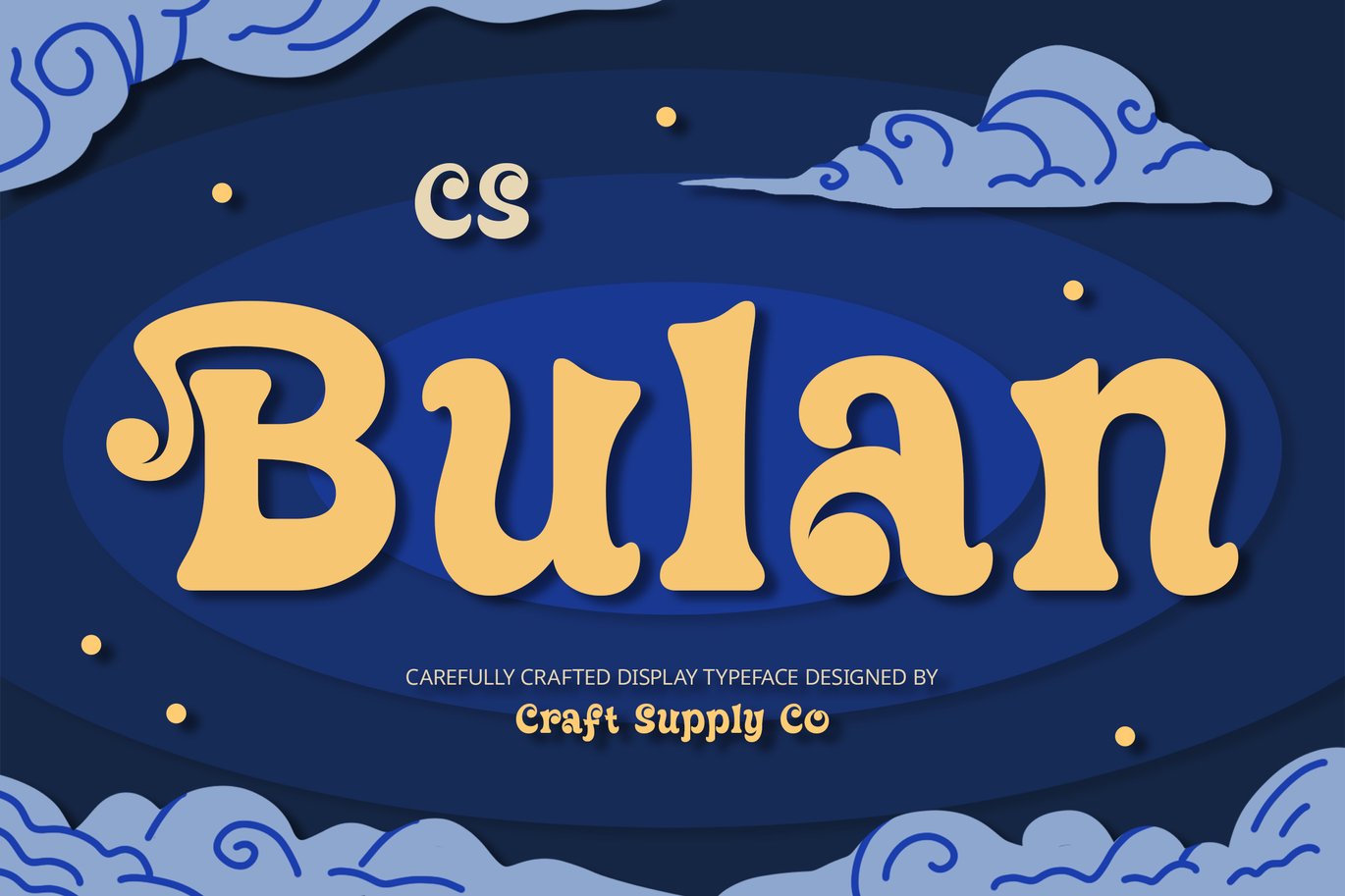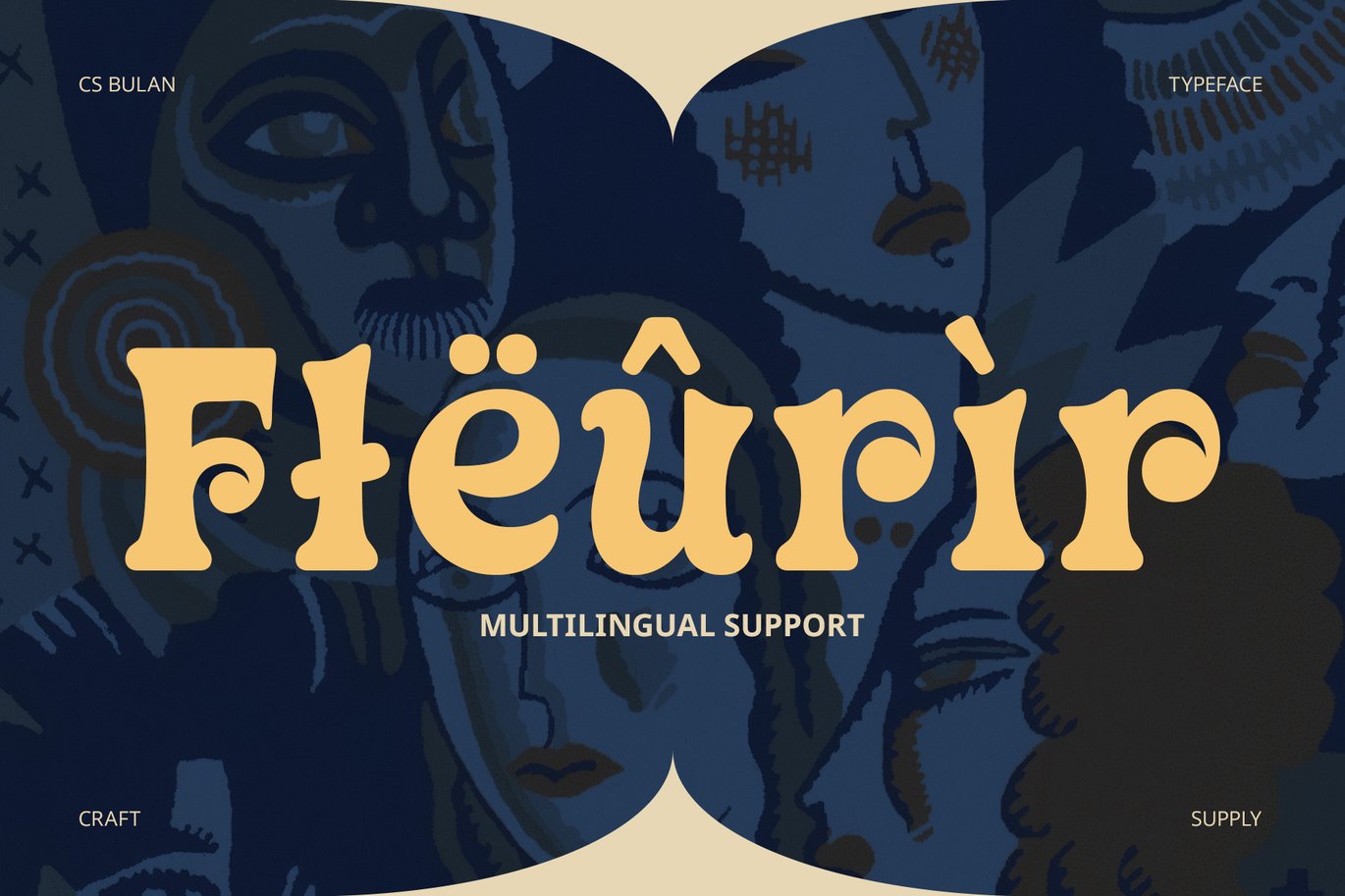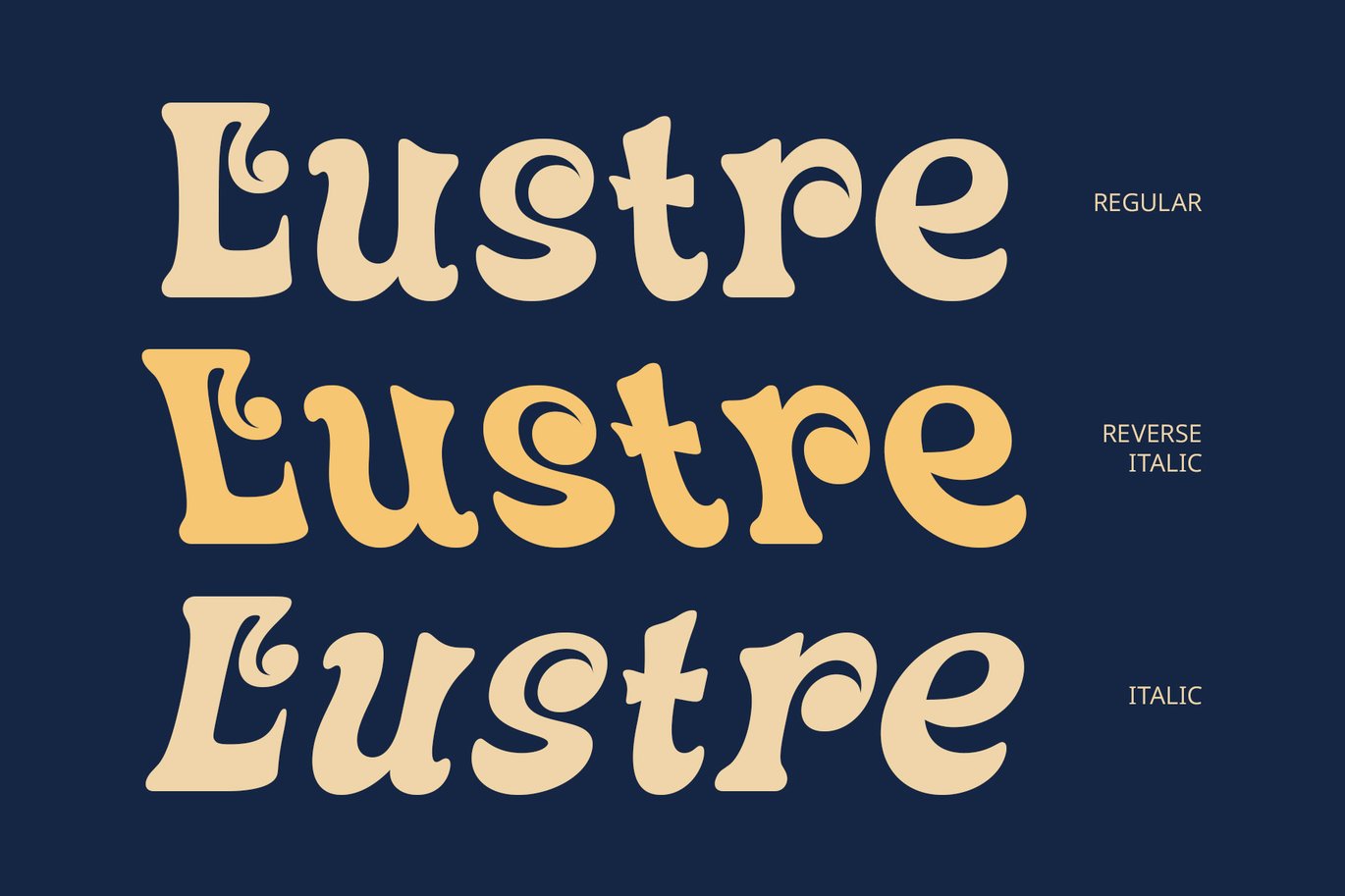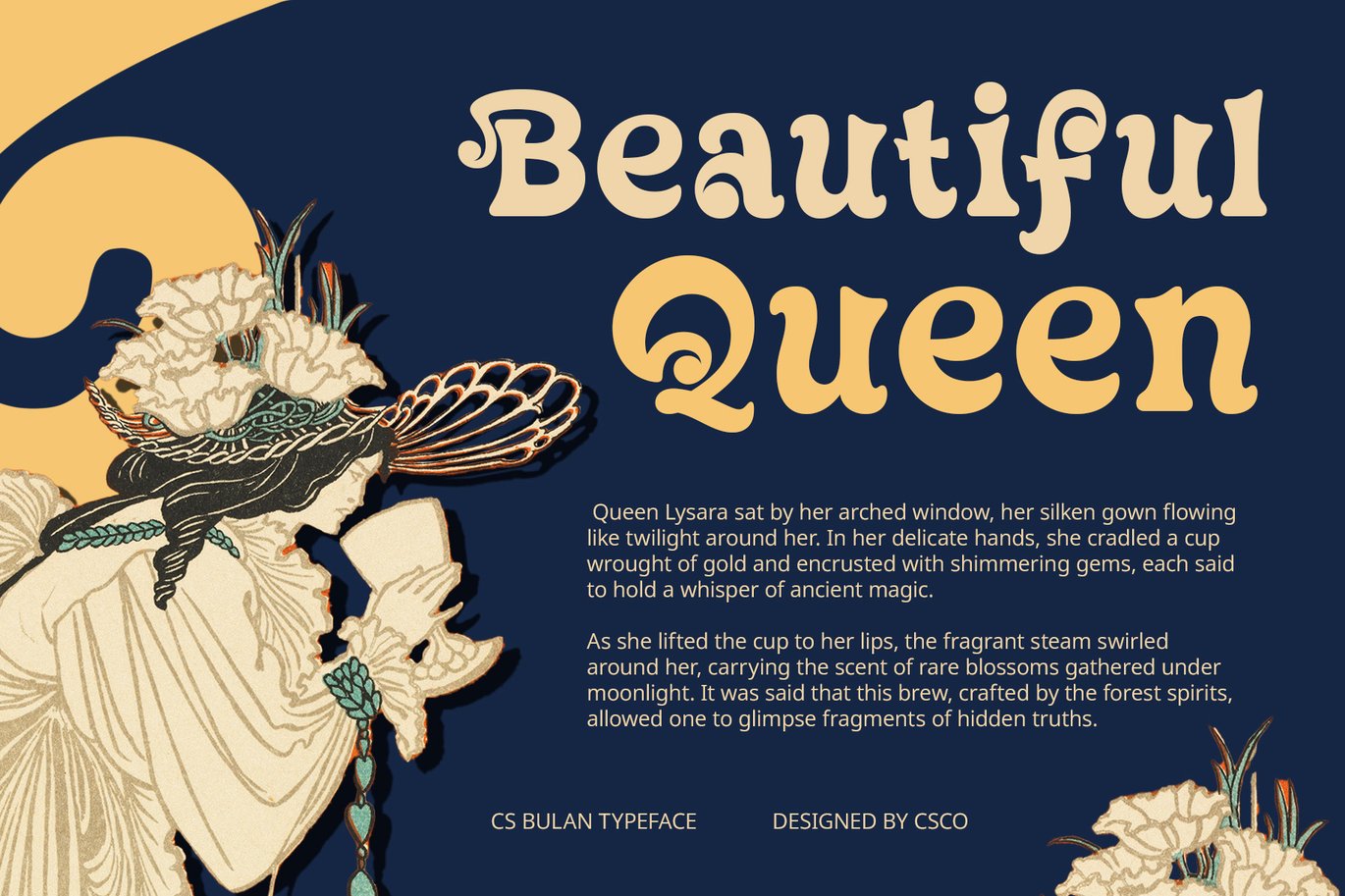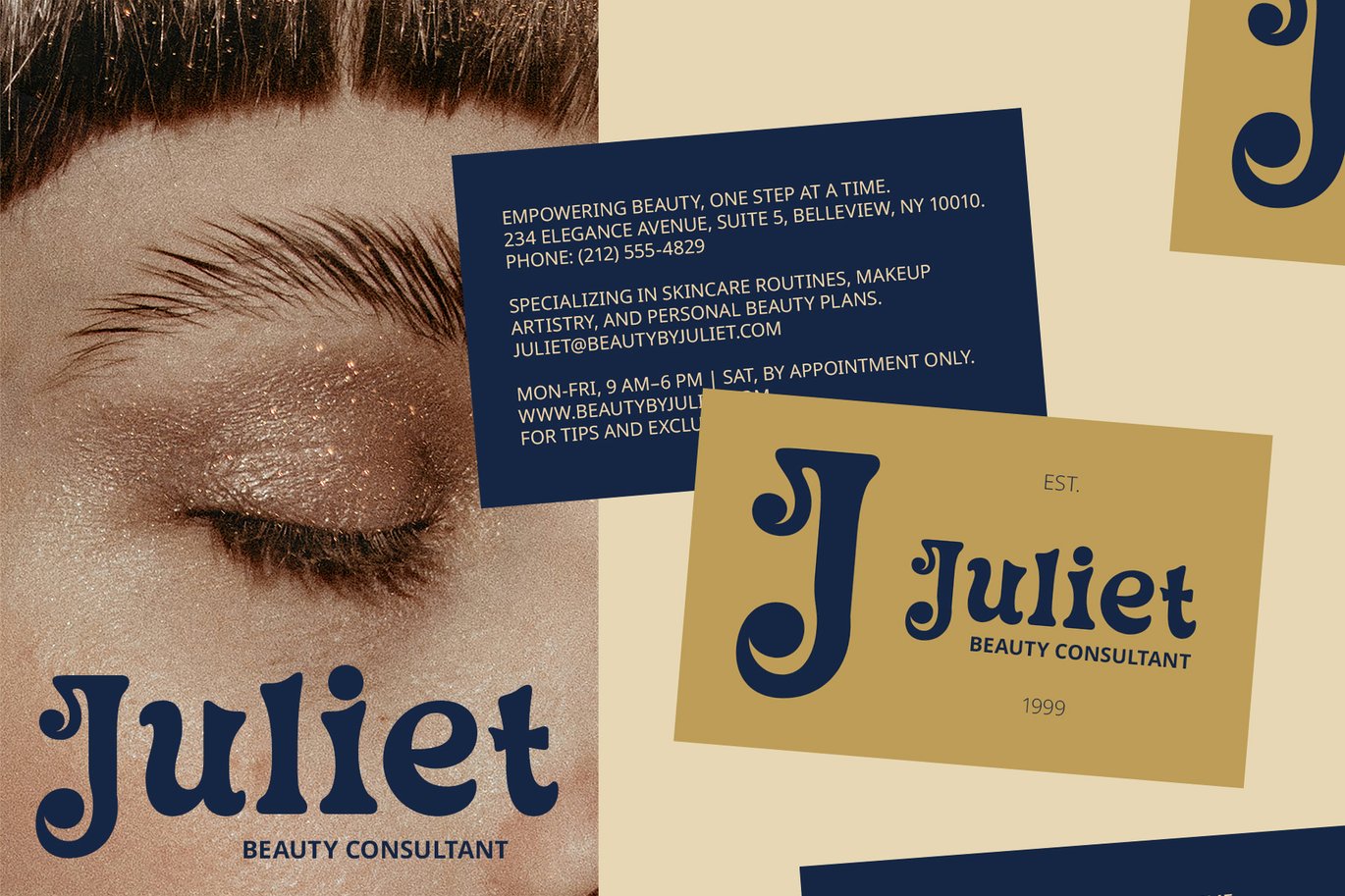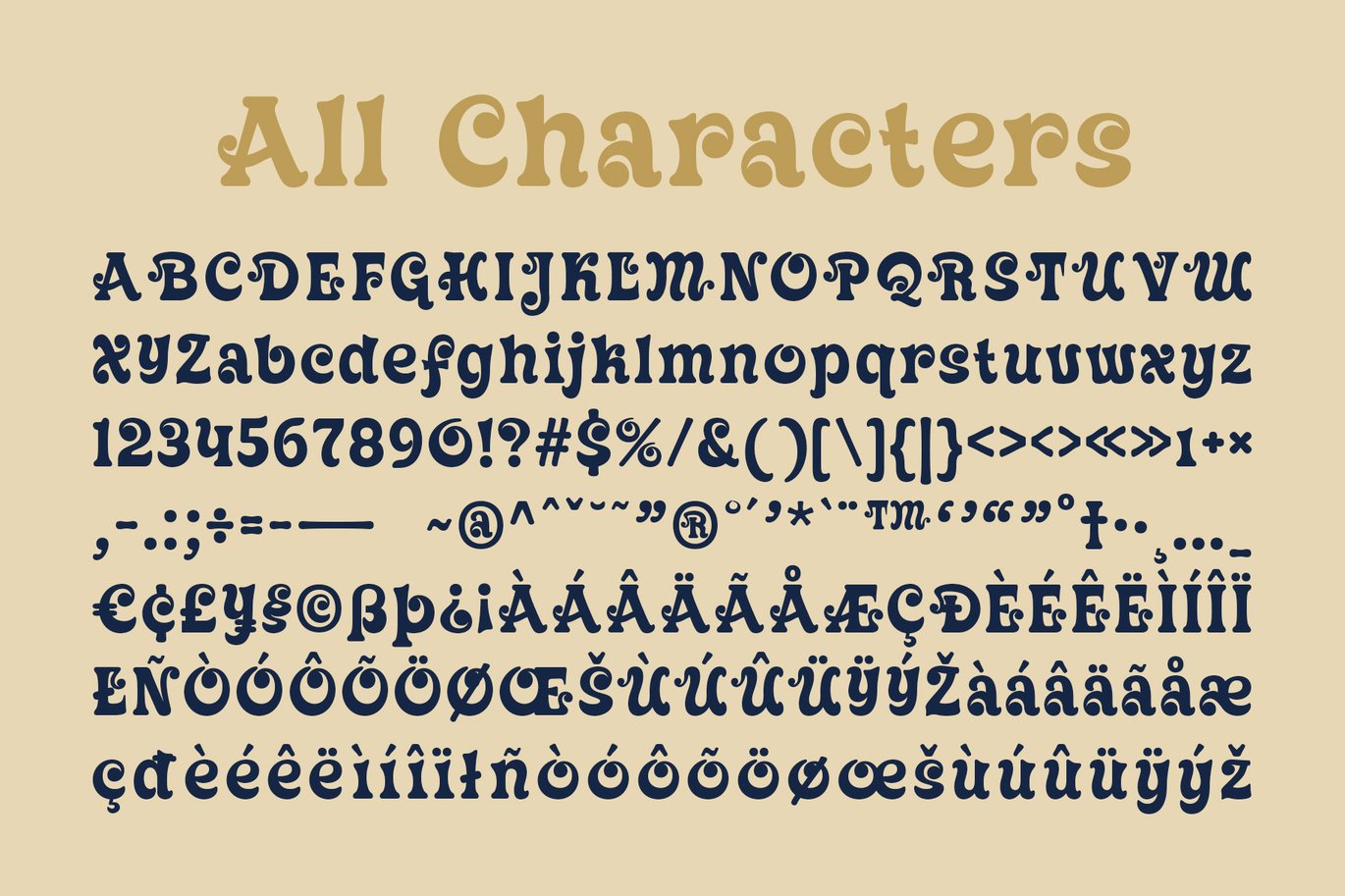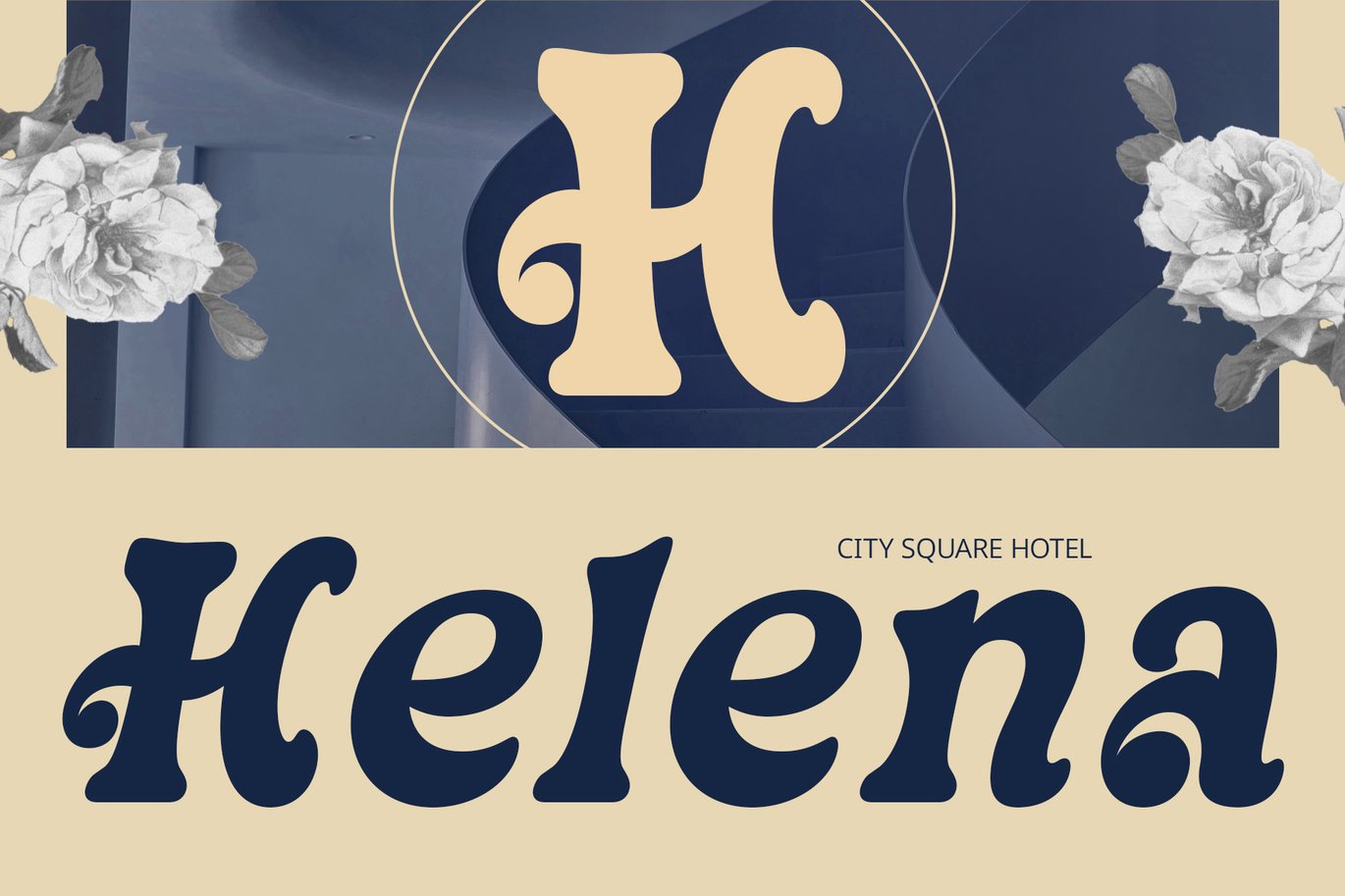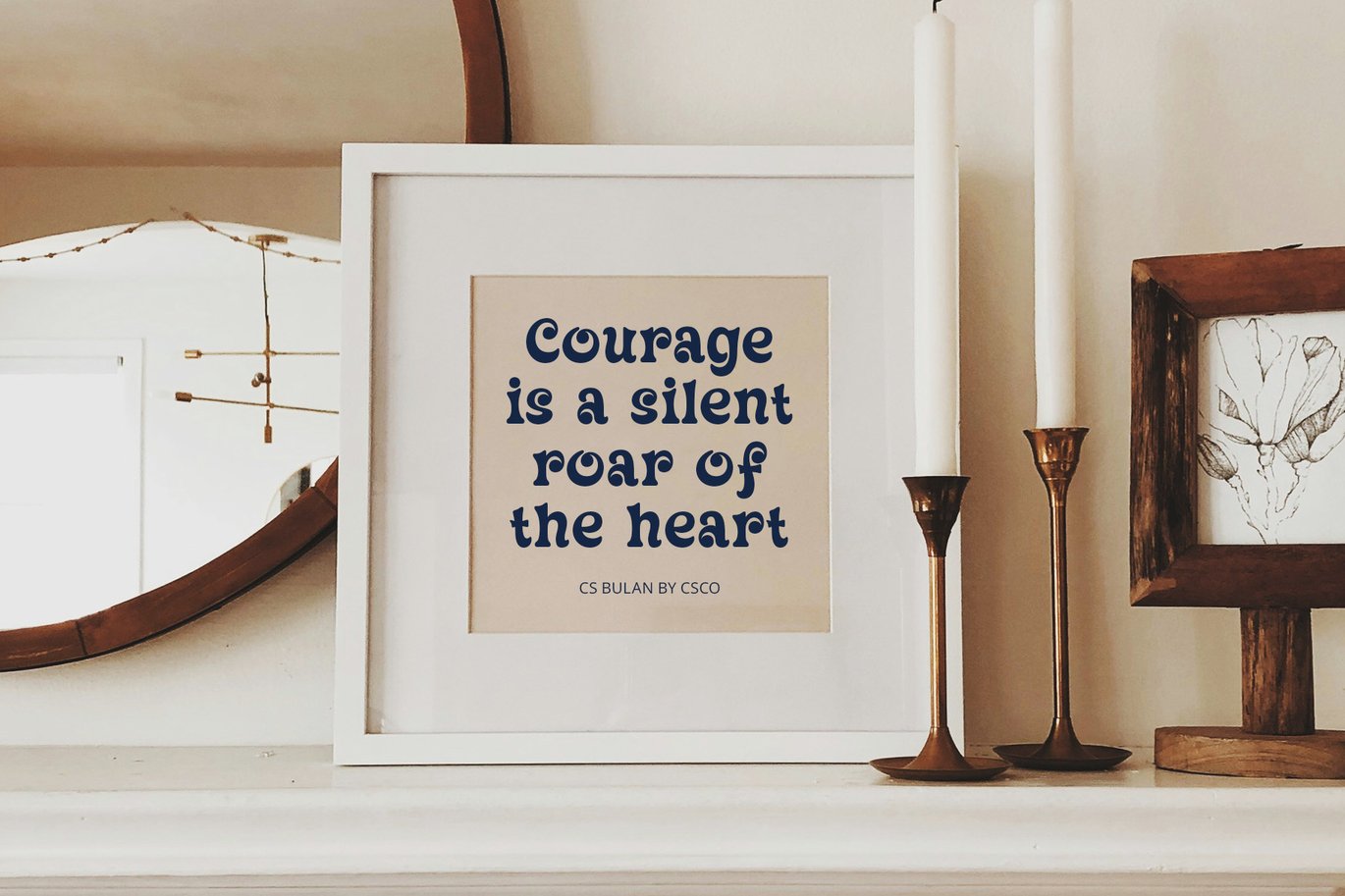
Bulan – Fantasy Font
CS Bulan – Fantasy Font: A Bold, Enchanting Serif with a Touch of Magic
Fantasy-Inspired Display Serif with Bold Strokes
CS Bulan – Fantasy Font is a modern display serif that captures the essence of fantasy through its unconventional, imaginative shapes. Designed with bold strokes and intricate detailing, this font evokes a sense of enchantment, beauty, and mystery. The unique letterforms, inspired by fantastical elements, create a striking visual presence, making it perfect for projects that require a touch of magic and creativity.
Intricate Detailing with a Modern Twist
What sets CS Bulan apart is its combination of intricate, decorative elements and a modern aesthetic. The fine details enhance the font’s fantastical nature, while the clean, bold strokes ensure that it maintains a contemporary and sophisticated look. This fusion of old-world charm and modern flair makes the font ideal for high-end branding and creative projects that want to evoke wonder and imagination.
Perfect for Fantasy-Themed Designs and High-End Branding
CS Bulan – Fantasy Font is the perfect choice for fantasy-themed designs, whether you’re creating book covers, movie posters, or magical branding projects. Its bold, distinctive style ensures that your message stands out while evoking a sense of adventure and wonder. Whether used for logos, editorial layouts, or event invitations, this font adds a layer of enchantment to any project, making it ideal for creative endeavors in the entertainment and luxury industries.